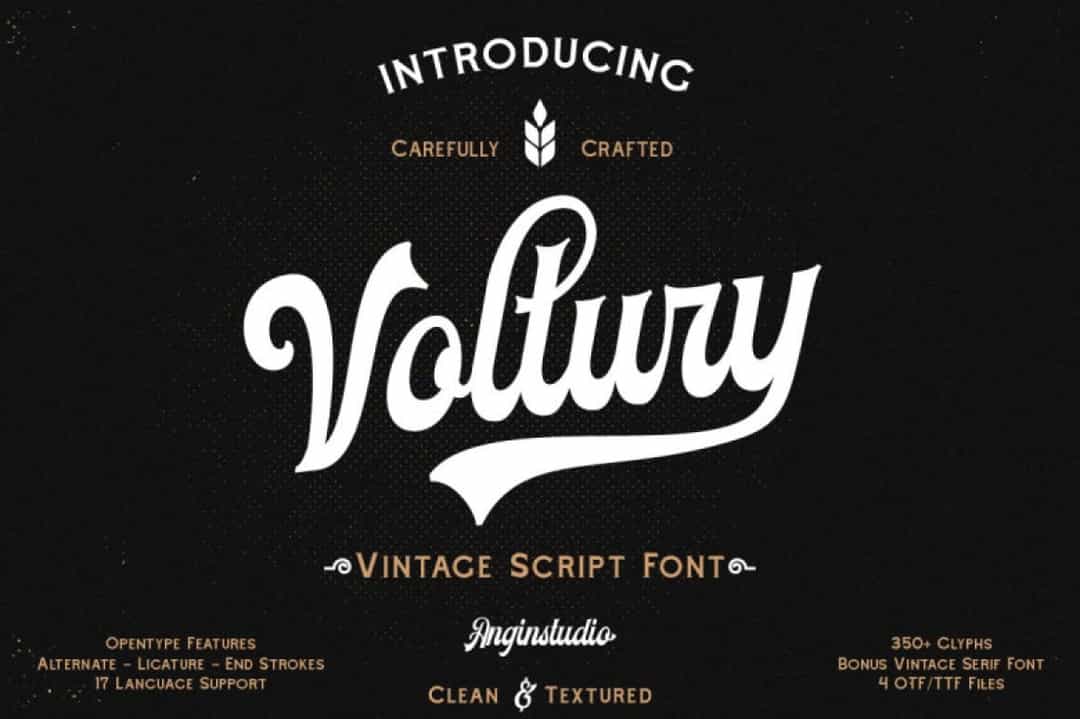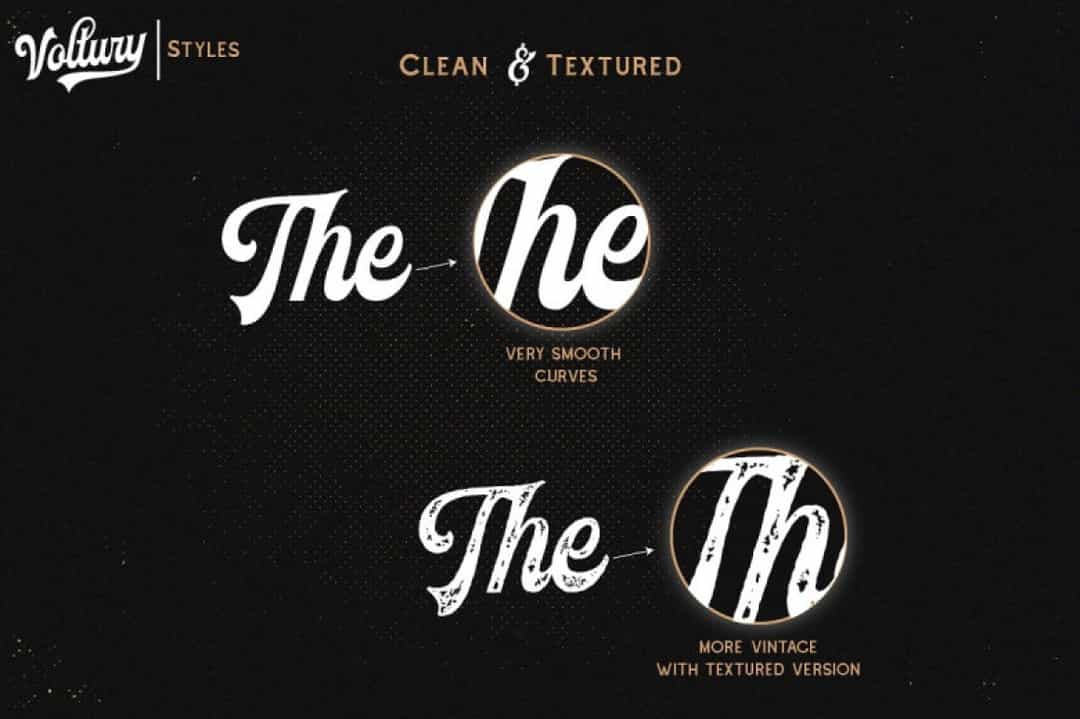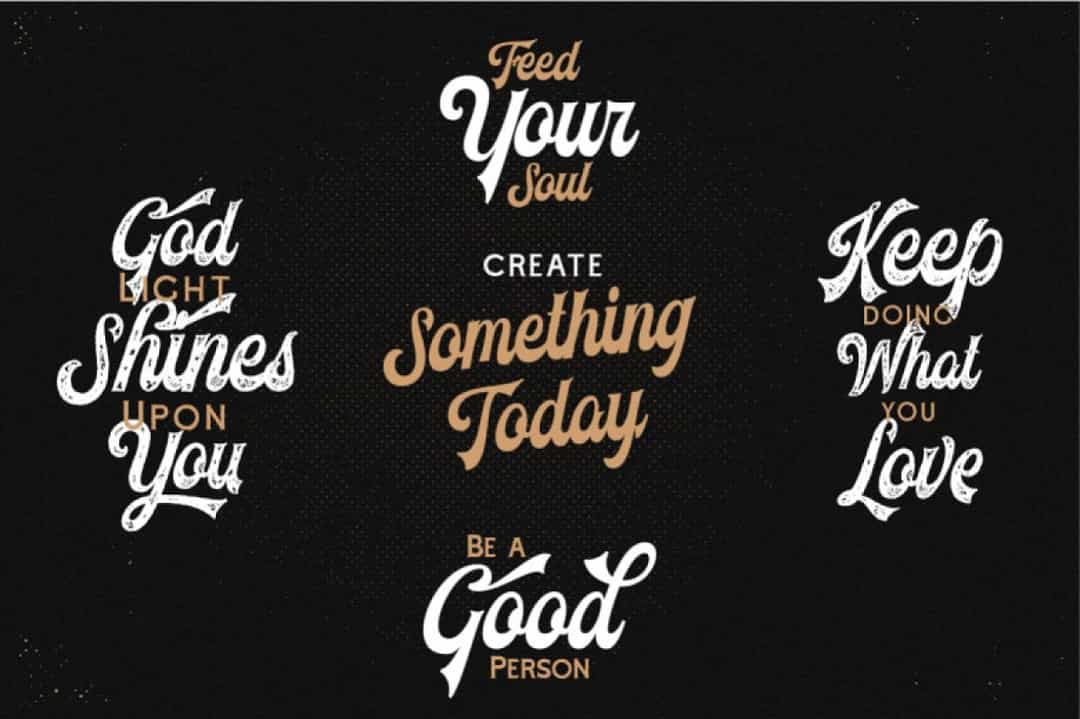
Voltury is a vintage-looking typeface created using hand lettering. Careful attention was taken in creating its script for smooth flow and great appearance; drawing inspiration from vintage signs and packaging from American cities and packaging products like Coca-Cola.